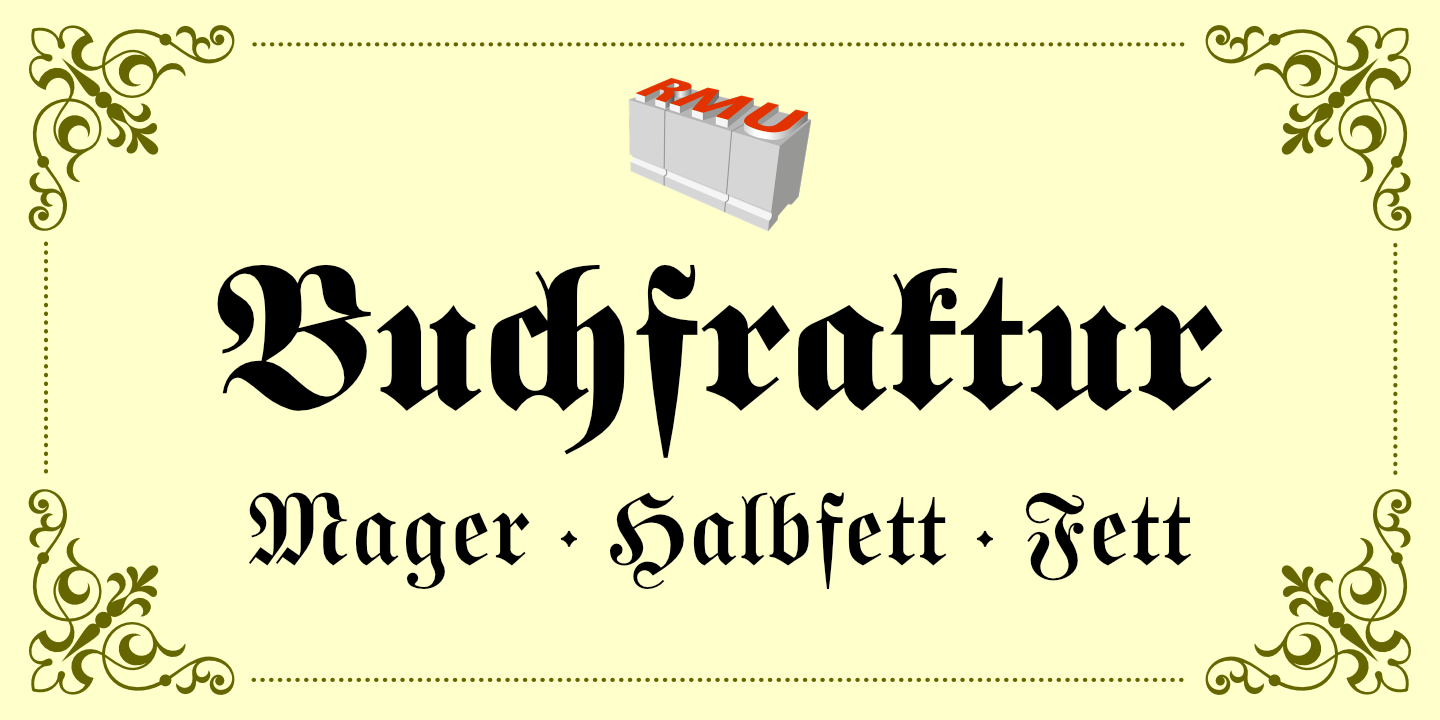
Buchfraktur Font is perfect for various applications including medieval book publishing, historical document reproduction, Germanic heritage branding, traditional brewery logos, classical music event posters, academic medieval studies, authentic restaurant signage, heritage museum displays, ceremonial invitation designs, and traditional craft marketing.
What makes Buchfraktur Font so exciting is its authentic preservation of medieval Germanic typography that transports readers back to the golden age of manuscript illumination and traditional European craftsmanship. This historic typeface features ornate, blackletter letterforms with Gothic proportions and medieval details that capture the essence of ancient scribes and traditional German printing heritage. The font's historic character and medieval aesthetic make it ideal for brands that want to convey tradition, authenticity, and European heritage to audiences who appreciate historical craftsmanship, medieval culture, and traditional Germanic artistry.
Buchfraktur Font family includes multiple weights and styles: Regular, Bold, Ornamental, Decorative, Condensed, Extended, Medieval, and traditionally crafted variants. Each family member maintains the font's signature Gothic authenticity while offering different levels of visual impact and stylistic flexibility for diverse historical and heritage applications.
The Buchfraktur Font Free Download provides designers with access to a historically-inspired typeface that excels in heritage and traditional markets. Whether you're creating authentic Germanic brand identities, designing historical publication materials, or developing traditional cultural experiences, this font delivers the medieval aesthetic needed to establish authenticity with heritage-conscious audiences and history enthusiasts. Its Gothic styling and traditional essence make it particularly effective for breweries, medieval restaurants, and European heritage organizations.
Typography historians will appreciate the authentic medieval craftsmanship and Gothic tradition in Buchfraktur Font's design. The font features meticulously preserved letterforms with Gothic proportions, traditional spacing that honors medieval scribal practices, and carefully maintained details that ensure excellent readability while preserving its historic character. From illuminated manuscripts to traditional brewery labels, this typeface maintains its authenticity and medieval appeal across all heritage contexts.
For heritage web designers, Buchfraktur Font provides outstanding performance in traditional digital environments and historical platforms. The font's technical specifications are optimized for authentic presentations while preserving the ornate, Gothic edges that define its medieval character. Its historical accuracy makes it suitable for both static heritage content and interactive medieval experiences.
Creative professionals working in historical preservation, Germanic heritage, traditional brewing, and medieval entertainment will find Buchfraktur Font to be an essential tool for projects requiring authentic historical communication. The font's ability to convey tradition, craftsmanship, and medieval authenticity makes it invaluable for brands targeting history enthusiasts and heritage-conscious demographics.
Design agencies specializing in heritage and traditional brands appreciate Buchfraktur Font's versatility in creating memorable medieval identities.